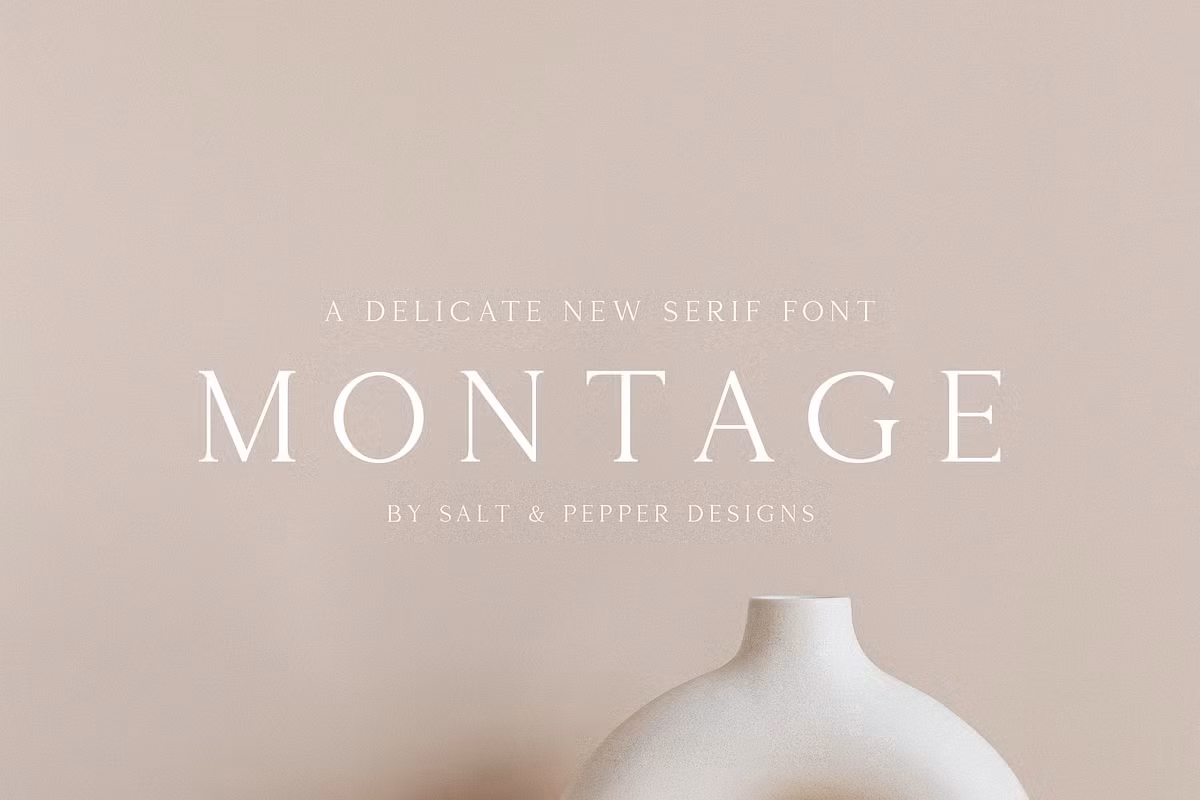
Montage Serif Font Free Download is a modern serif typeface that blends elegance with contemporary design. With its high contrast strokes, stylish curves, and refined details, Montage is perfect for editorial layouts, fashion branding, logos, wedding invitations, and luxury packaging.
This font offers a timeless aesthetic while embracing modern flair—making it both classic and fresh. Montage includes a full set of uppercase and lowercase characters, numerals, punctuation, and elegant ligatures, giving you all the tools needed for standout typography.
Whether you're crafting a chic magazine spread or designing a high-end brand identity, Montage Serif Font Free Download delivers sophistication and versatility. Download it for personal or mockup use to explore its beauty, and remember to obtain a commercial license for professional applications. Add a touch of refined style to your next project with this beautifully designed serif font.